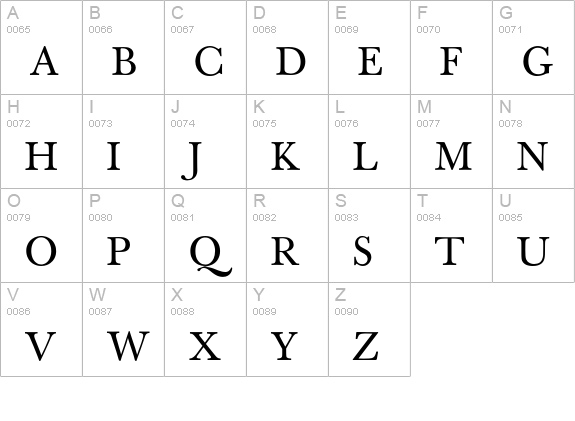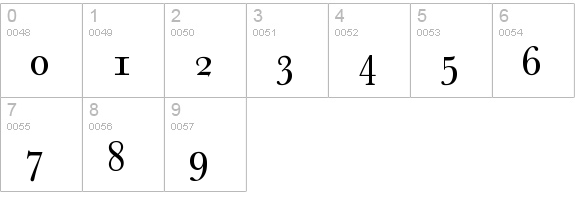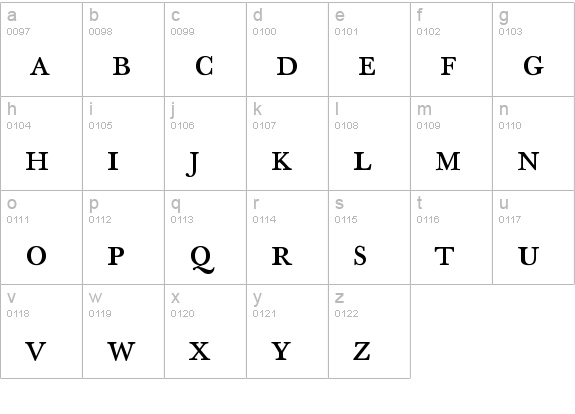
Baskerville Book BQ Regular Font Details
Baskerville Book BQ Regular is a comfortable, highly readable variant in the Baskerville typeface family \xE2\x80\x94 well suited to long-form body text, articles, and editorial content.
Baskerville Book BQ Regular font is a timeless and elegant typeface that exudes sophistication and readability. With its classic serifs and balanced letterforms, this font is perfect for conveying a sense of professionalism and tradition in your design projects. Whether you're creating elegant invitations, refined editorial layouts, or stylish branding materials, Baskerville Book BQ Regular font is a versatile choice that will elevate your work to the next level. The best part? Baskerville Book BQ Regular font is available for free download at FontsMarket.com. Embrace the beauty and versatility of this exquisite typeface without any cost, and enhance your designs with its timeless appeal. Don't miss out on the opportunity to add this classic font to your collection and create stunning visuals that make a lasting impression. Download Baskerville Book BQ Regular font today and elevate your design projects with a touch of sophistication and elegance.